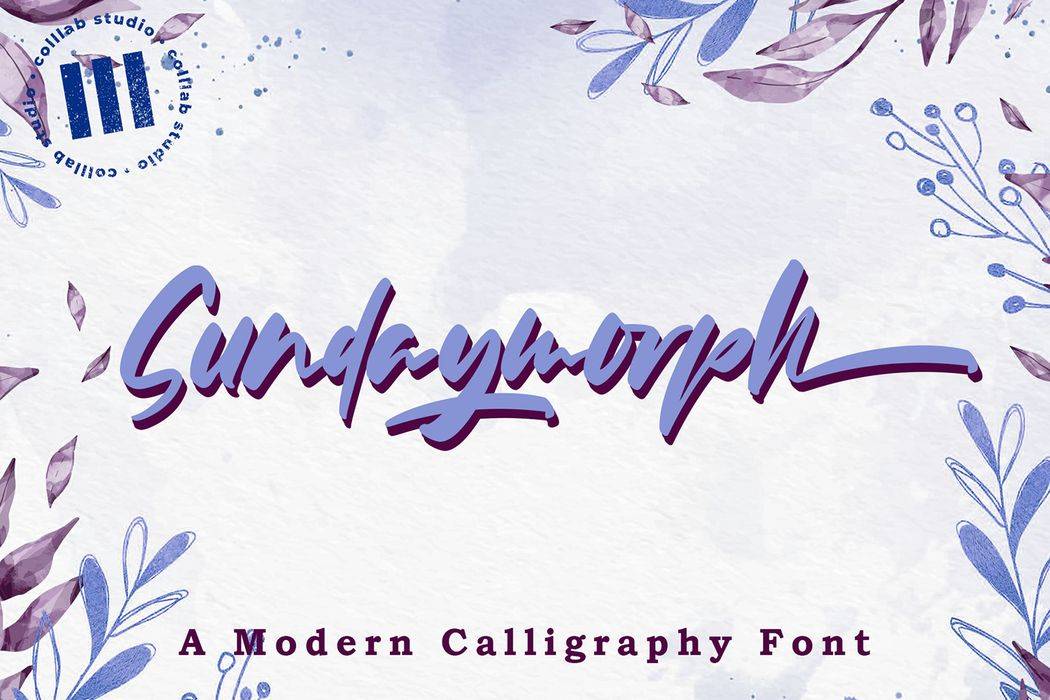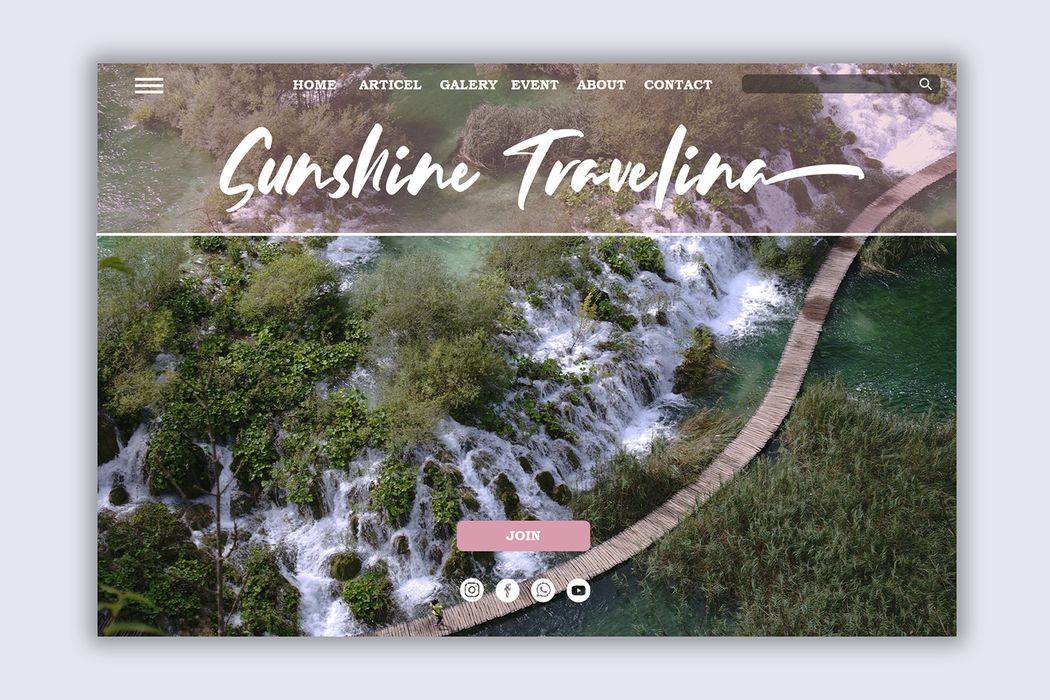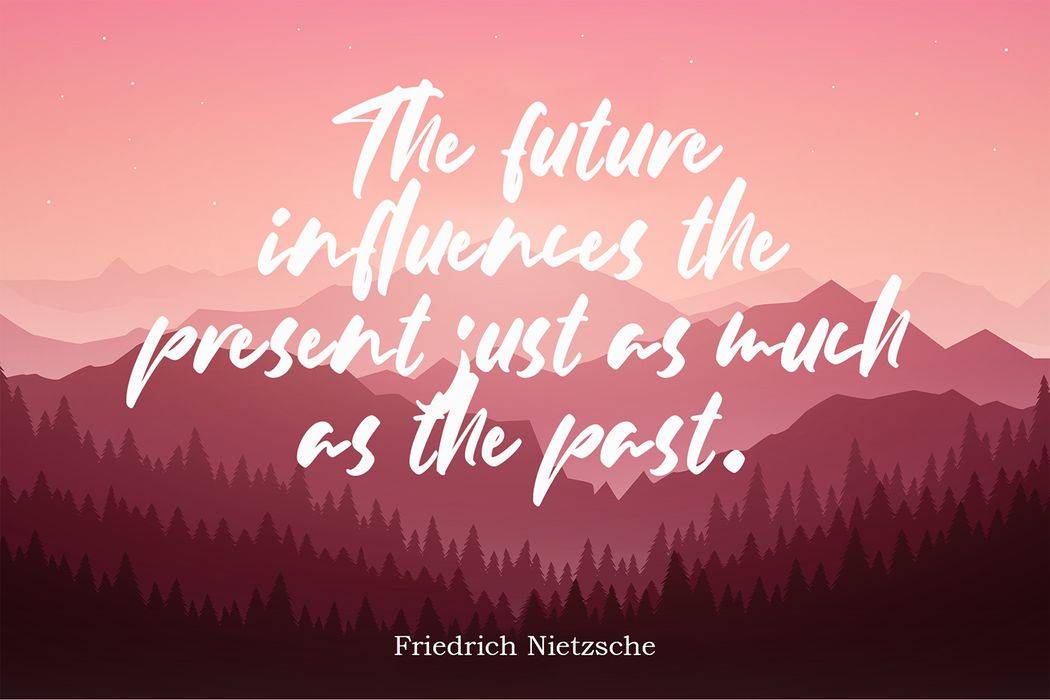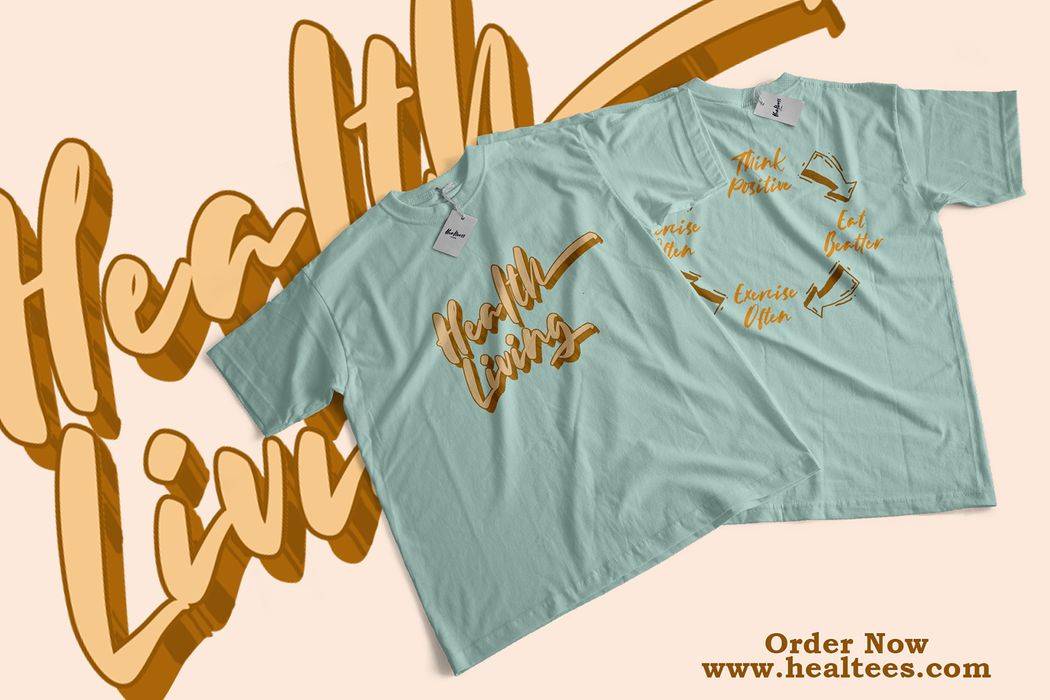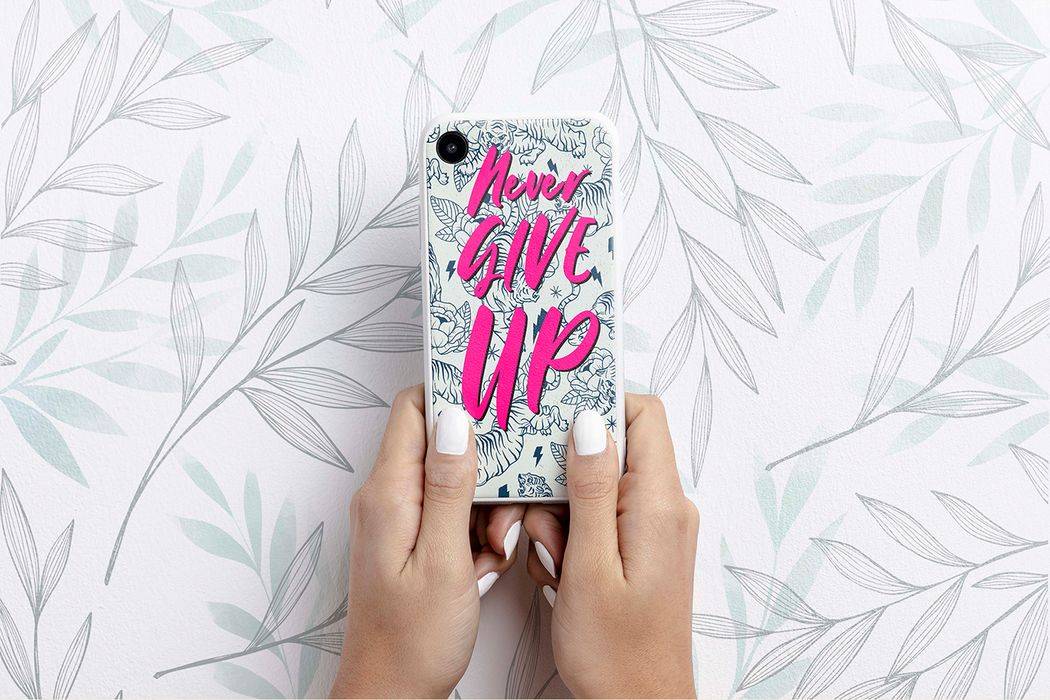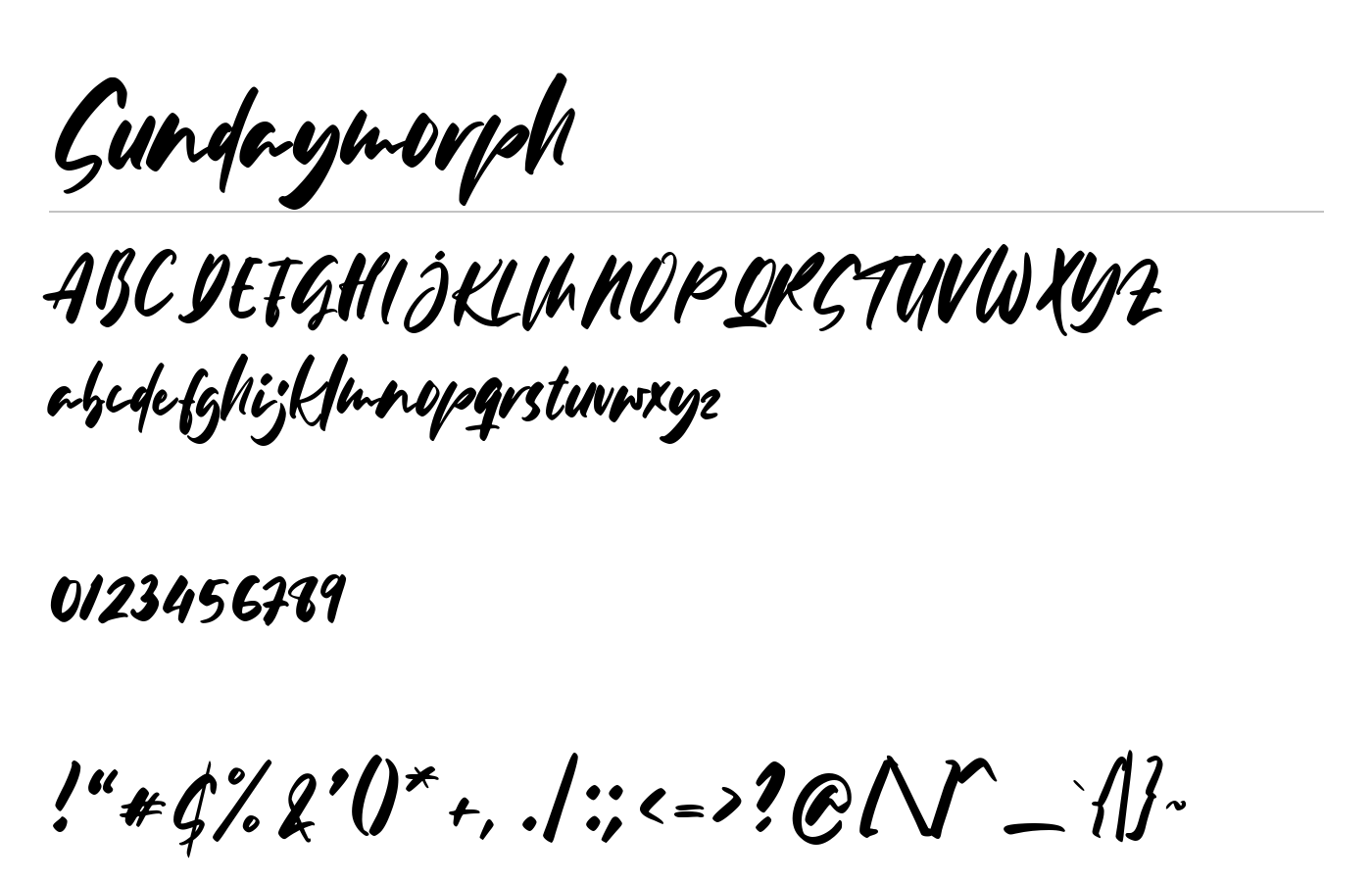
Sundaymorph is a lively, brush-style script font that feels bold and expressive with its strong, flowing strokes and varied thickness. Its casual yet artistic look makes it perfect for creative projects, branding, or headlines where a dynamic and personal touch is needed. This font works well for fashion, lifestyle, and modern designs seeking an energetic and handcrafted vibe.
| Font family | Sundaymorph Font |
| Release date | 2020-07-04 |
| Designer | Colllab Studio |